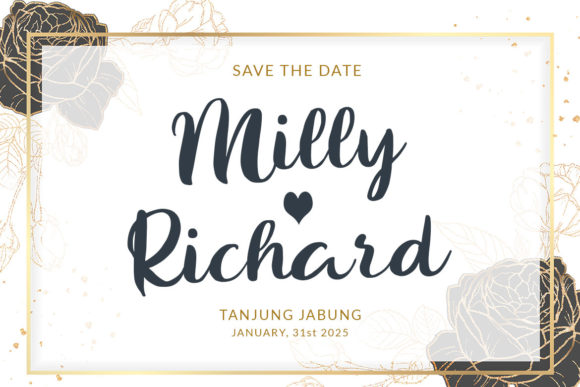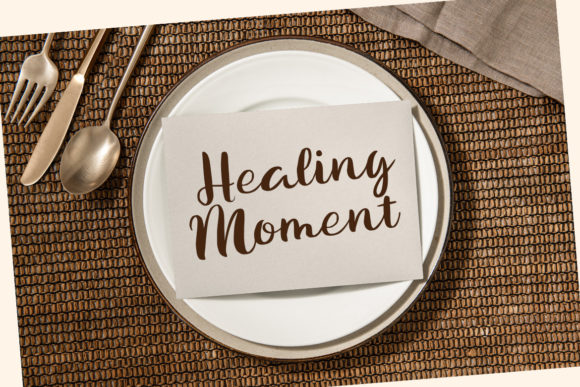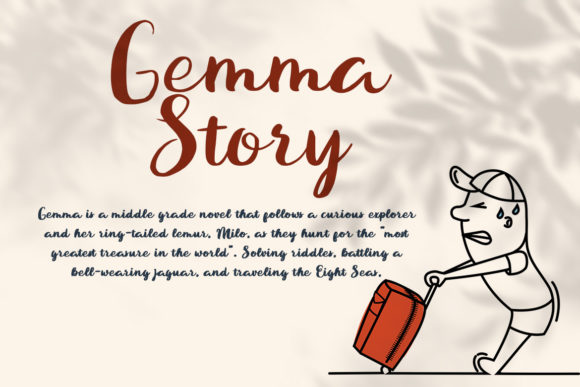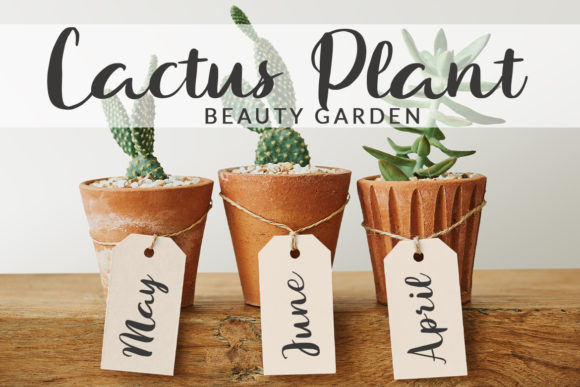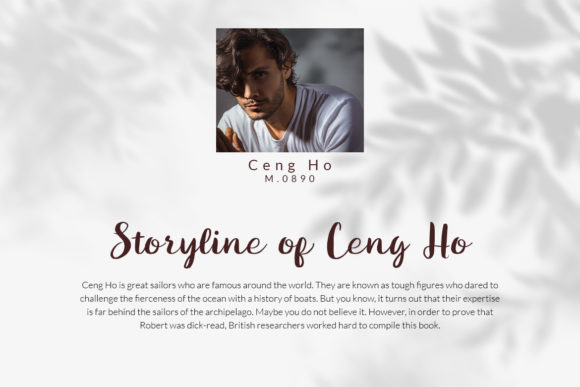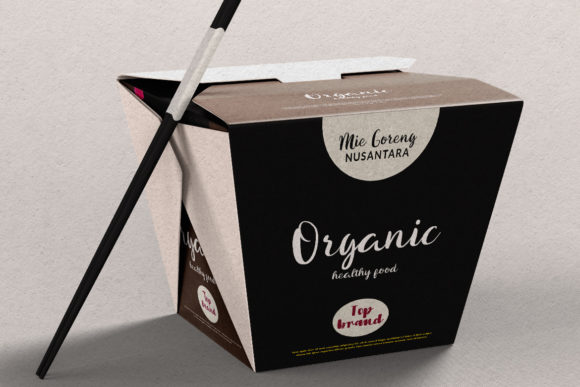
Introduction to Flysito Font
Flysito is a modern script font with gorgeous brush style and fun characters.
This font is perfect for any design needs such as badges, logos, posters, branding, packaging, signage, book covers and more .